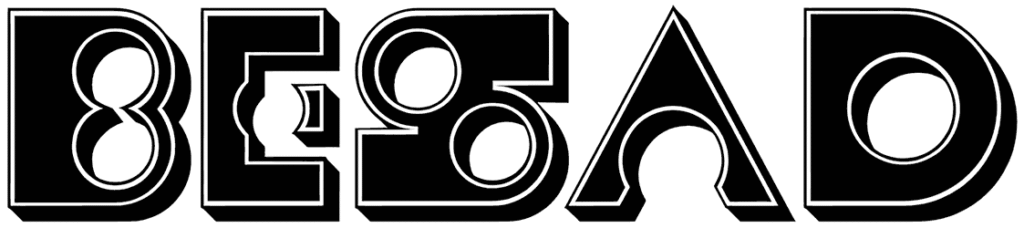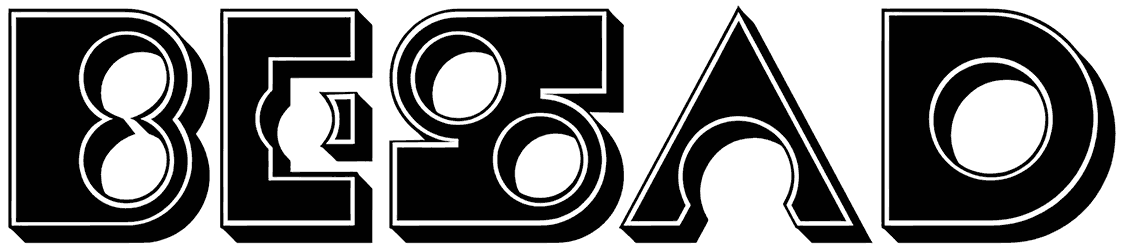
Besad Font
Imagine writing fabulous content but you feel something is lacking, you are still able to make it interesting with a non-traditional font like Bead. This fancy font with holes inside of its letter for no obvious reason makes the reader wonder and stick to your content to know what it is about.
This font comes with a very restricted collection of characters it won’t contain lowercase, numbers, or punctuation marks. Make sure to check it out.